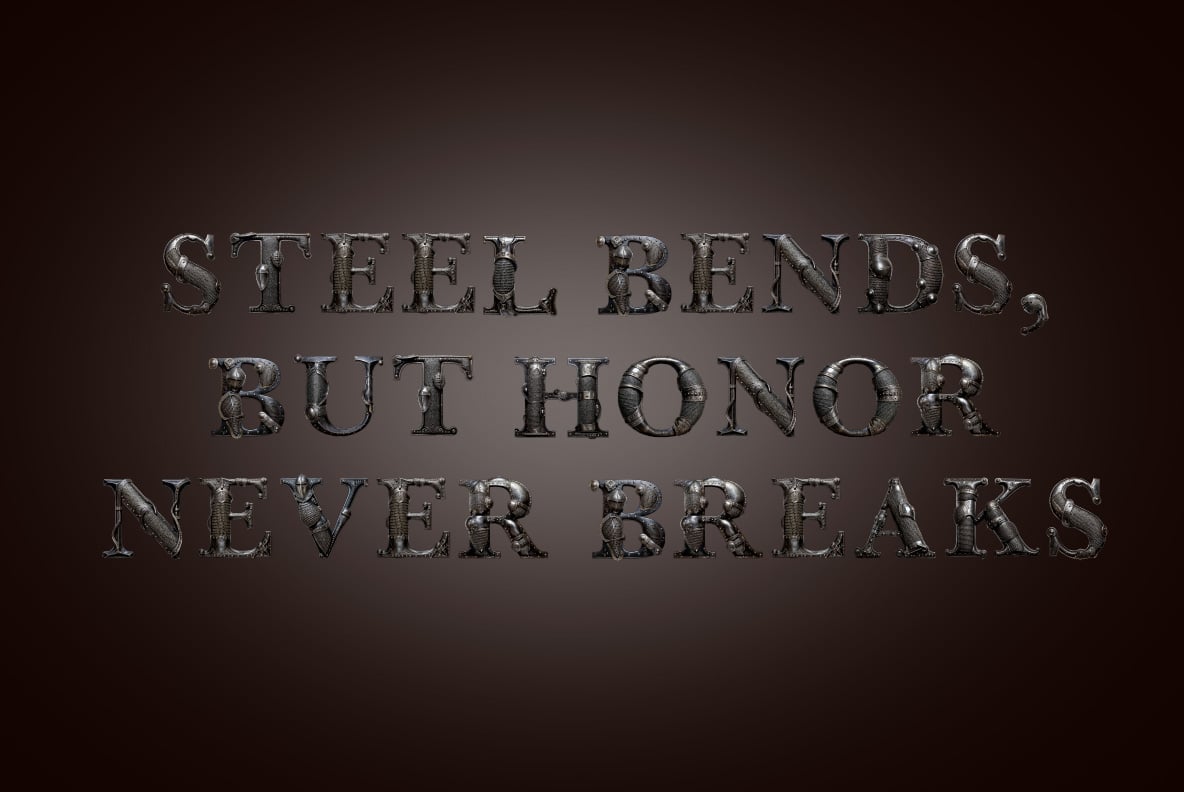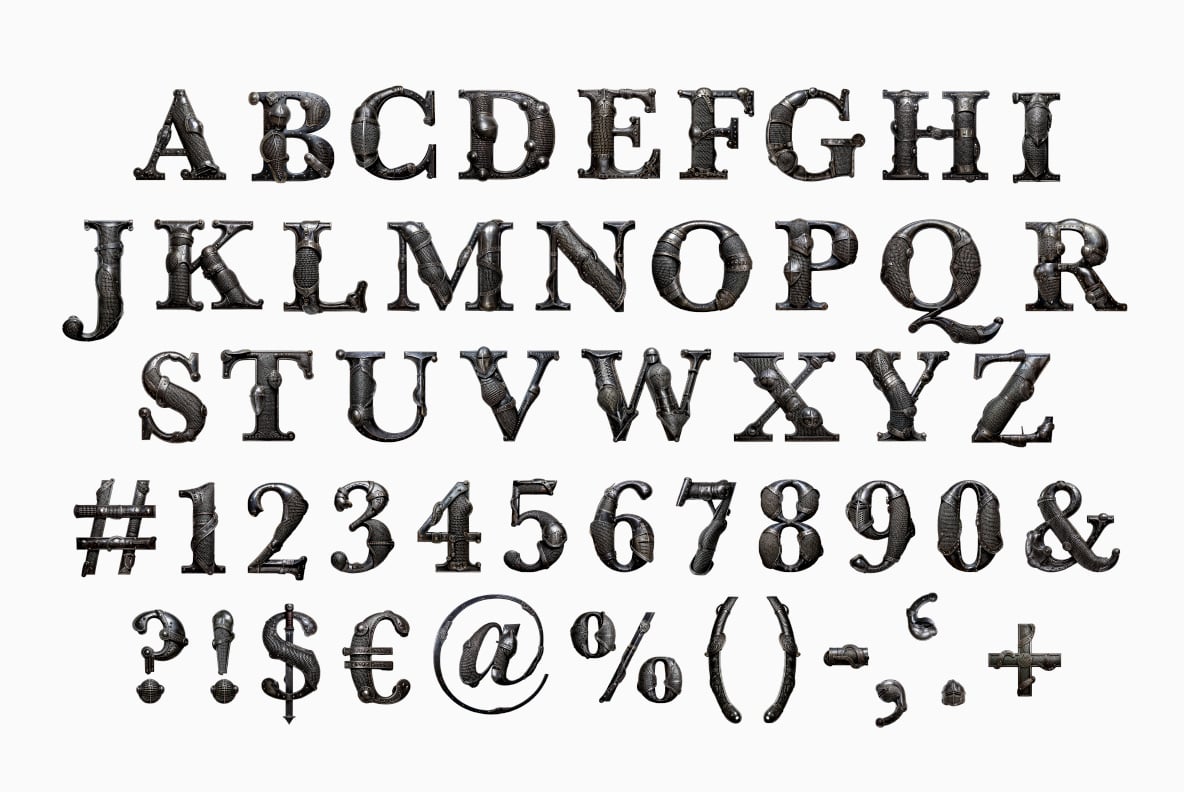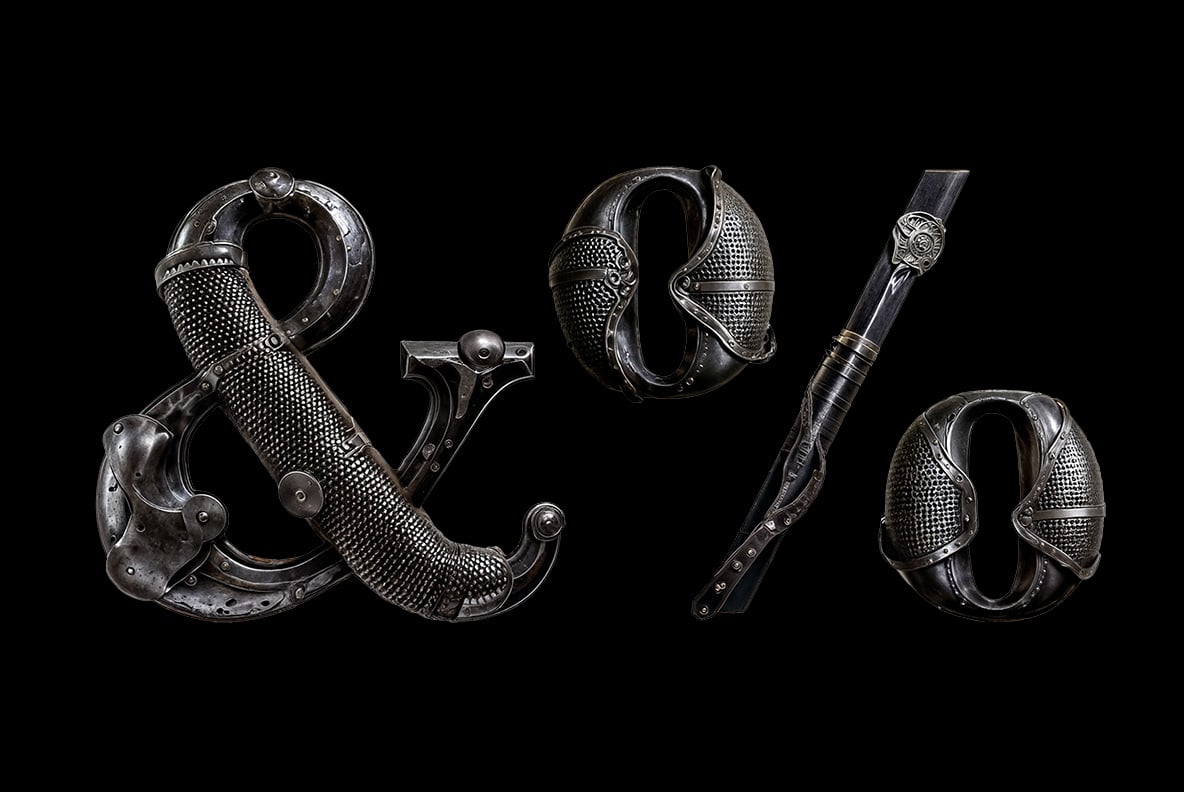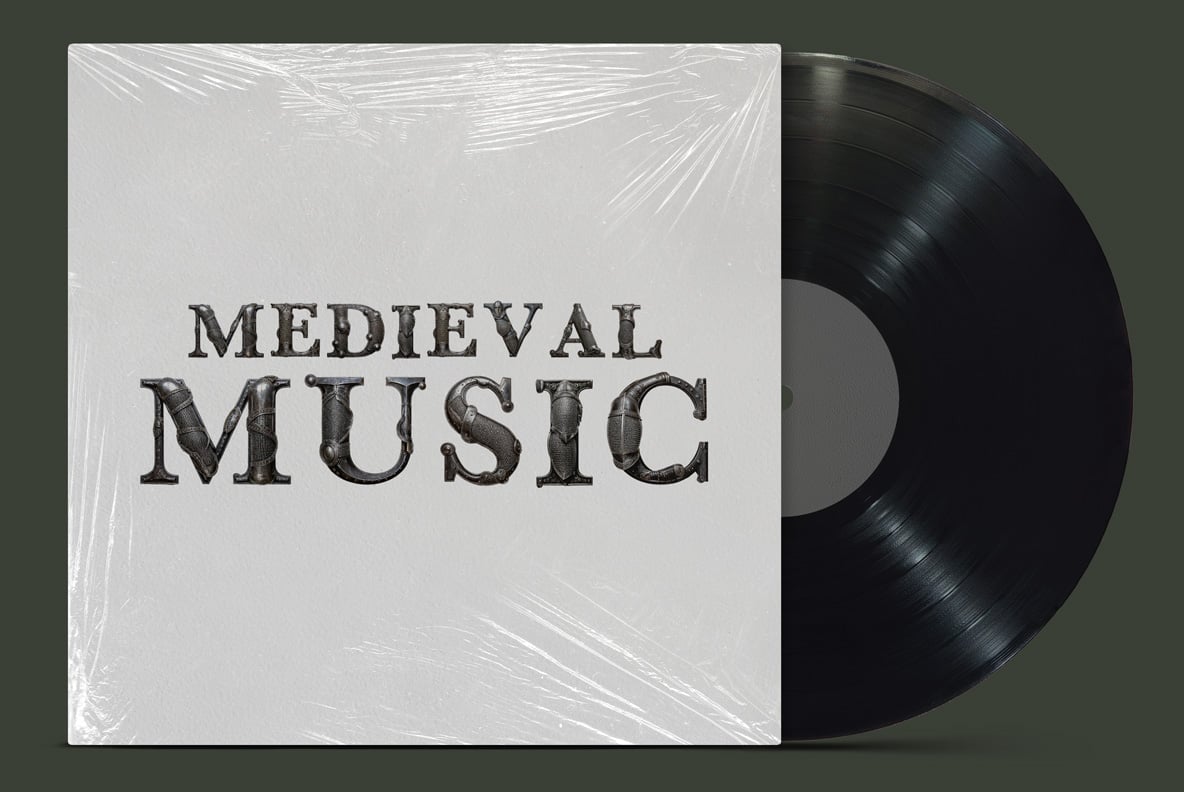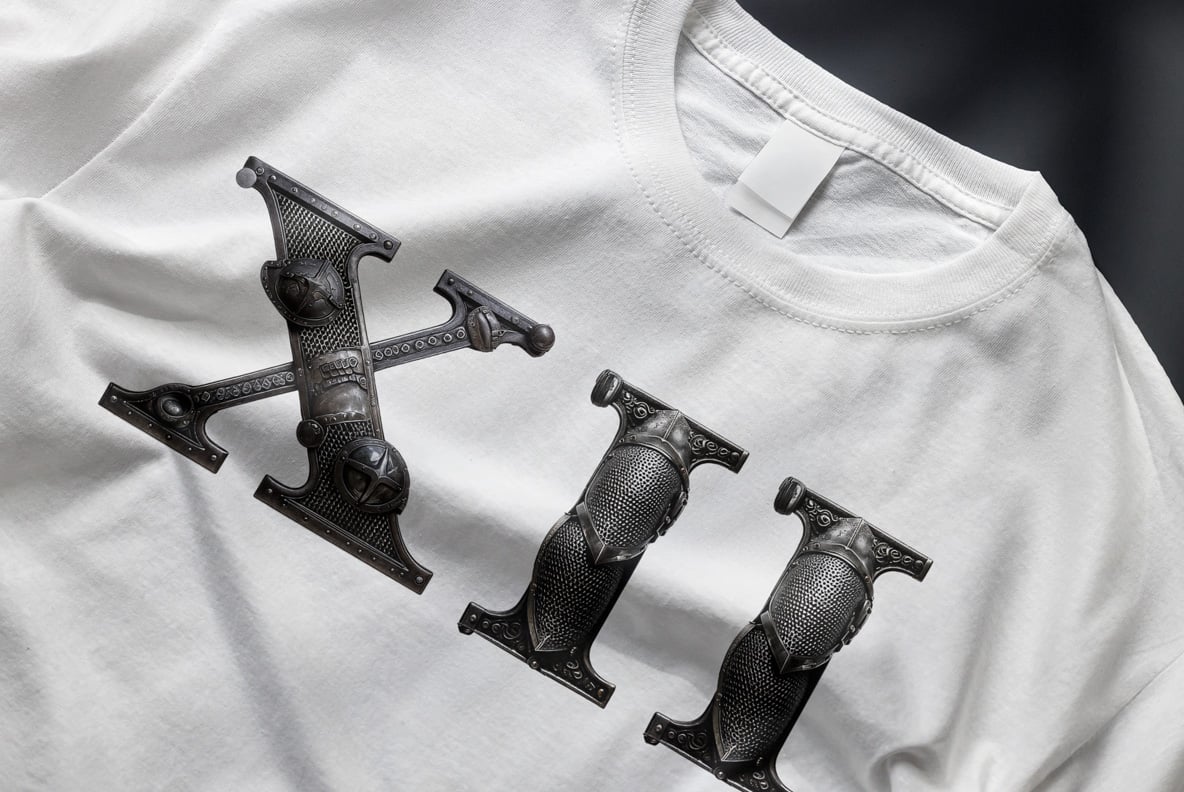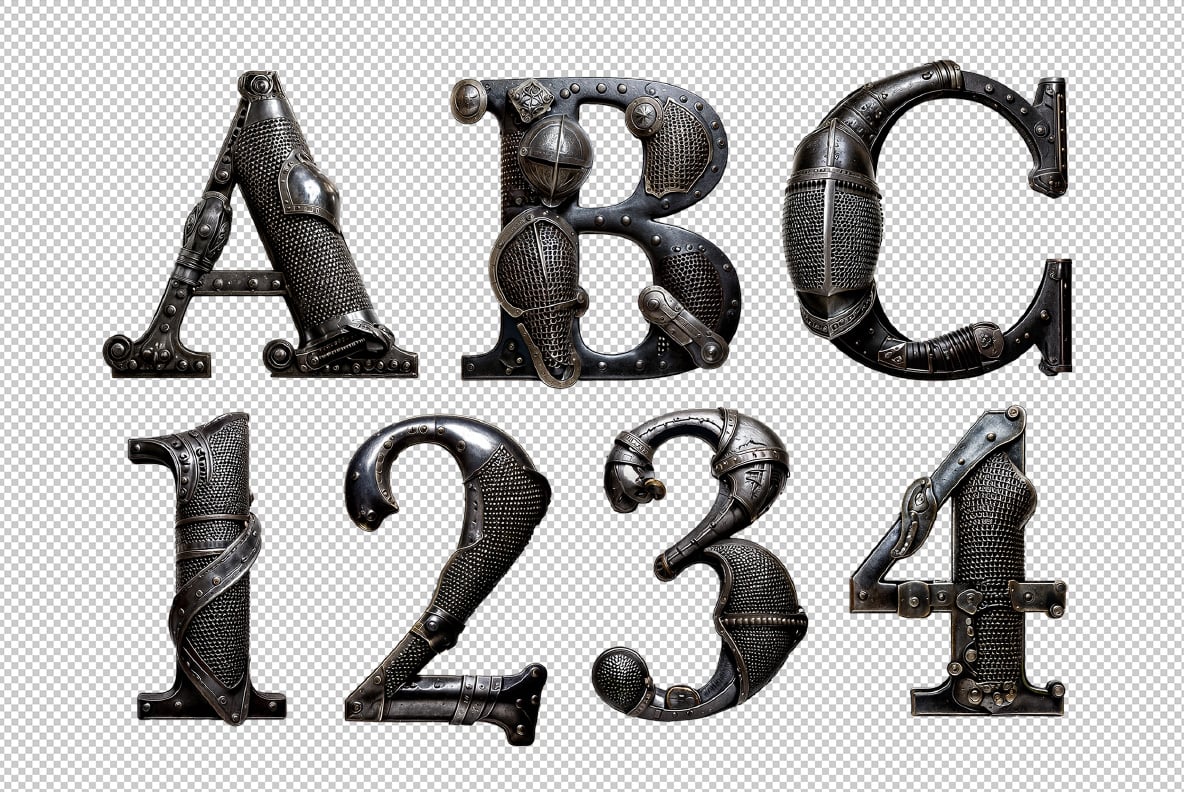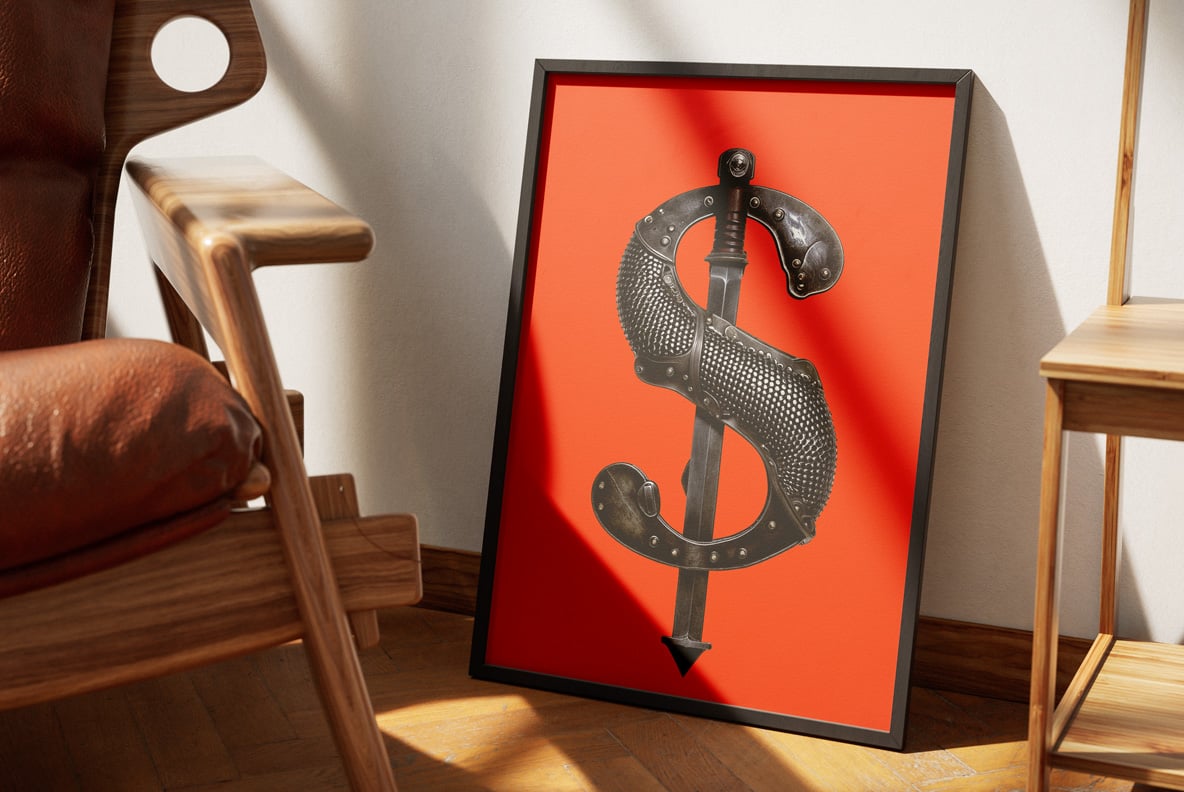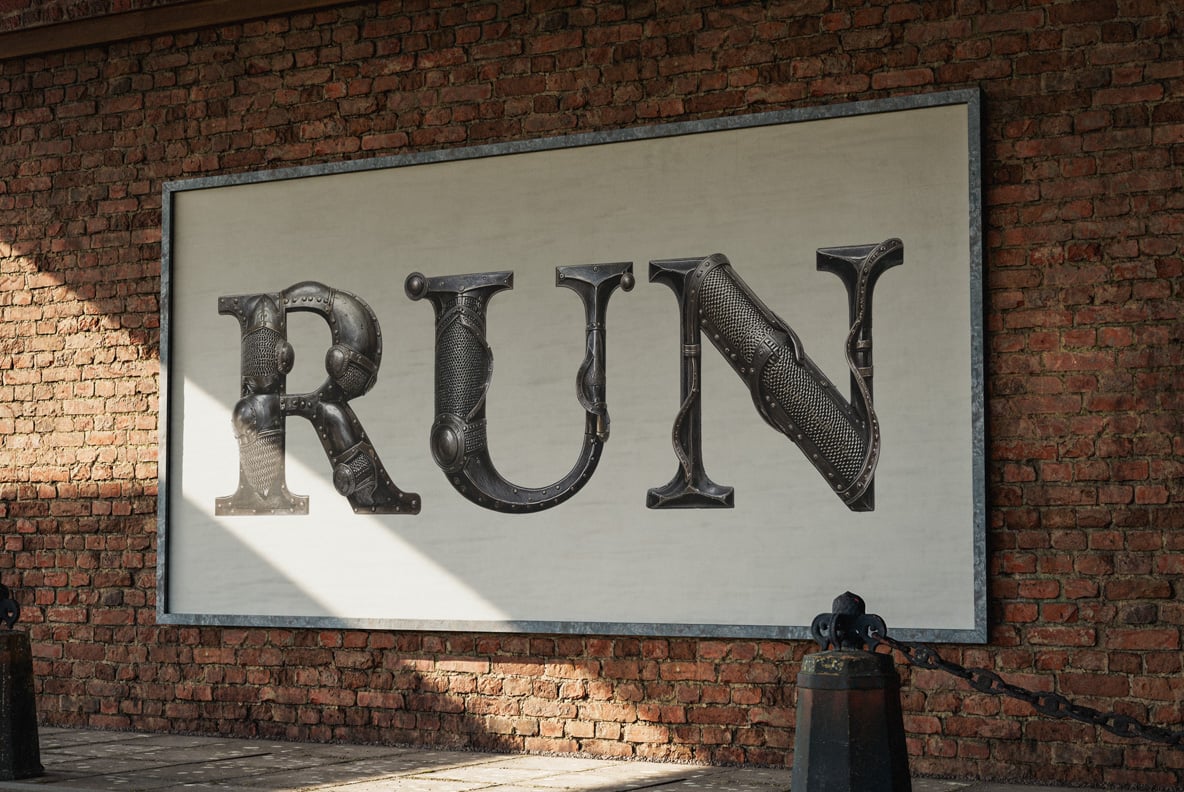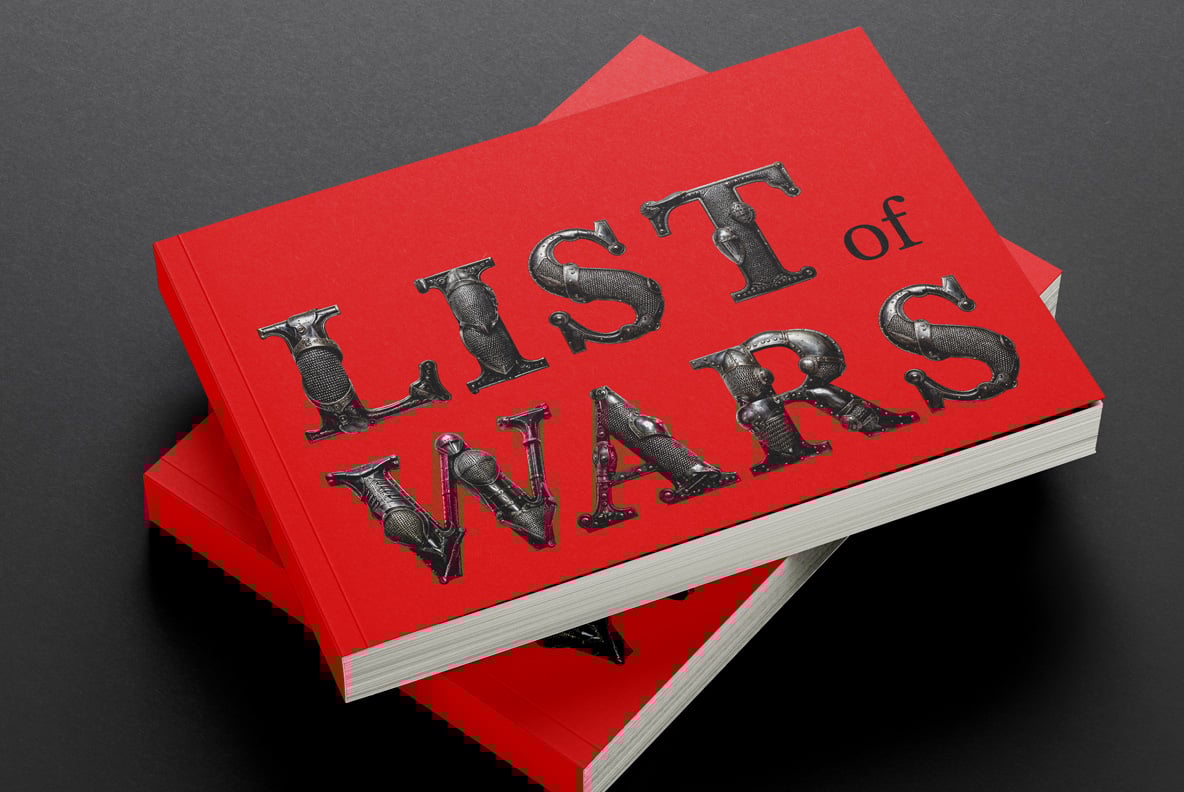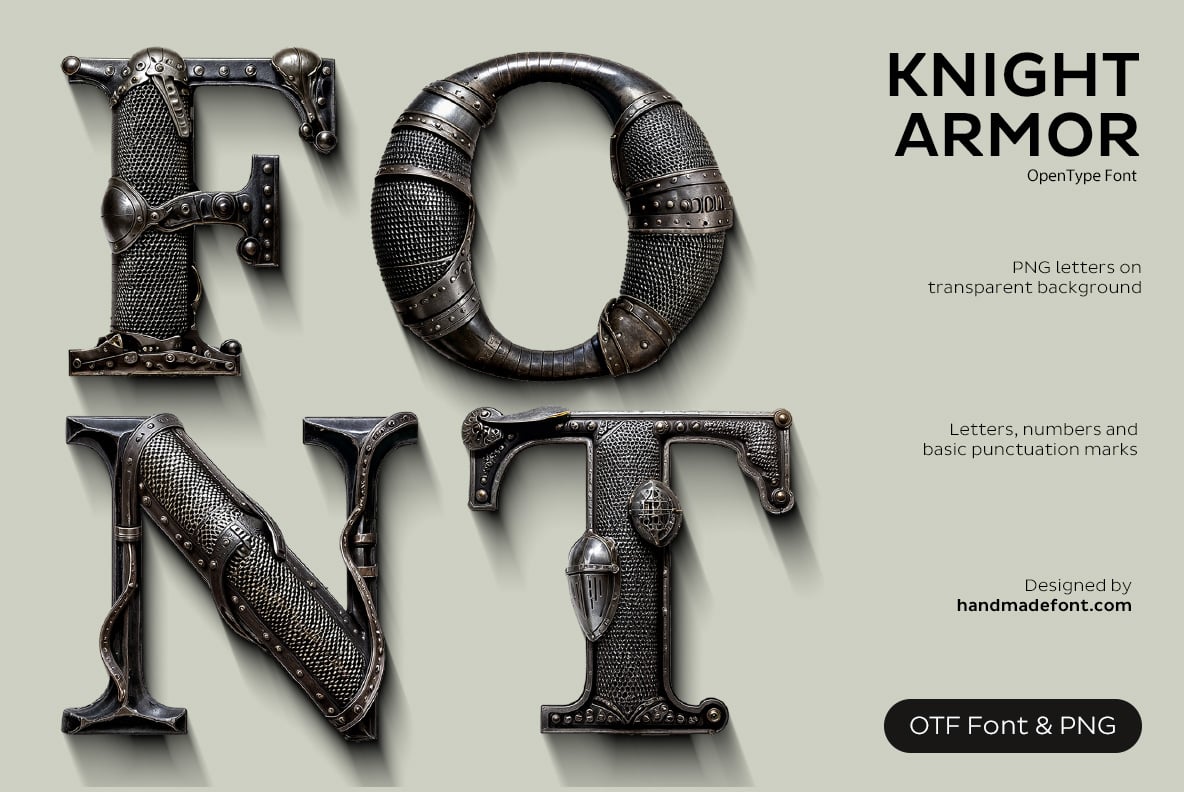
Knight Armor Font
Battle-hardened and forged in the fires of medieval warfare, Knight Armor Font is the ultimate weapon in the world of typography. Each letter is a fearless warrior, clad in dark metal, reinforced with rivets, and boasting the chivalrous might of a noble knight. This is not just an armor font—it’s a full-fledged army of warrior letters, standing shield-to-shield, ready to charge into any design battlefield. With helmeted glyphs, chainmail curves, and lance-sharp serifs, this knight-inspired font brings the spirit of the Middle Ages straight to your text. Whether you're designing for a digital joust or a royal decree, Knight Armor Font fights for boldness, honor, and legendary typography. En garde, mundane fonts—this is war!